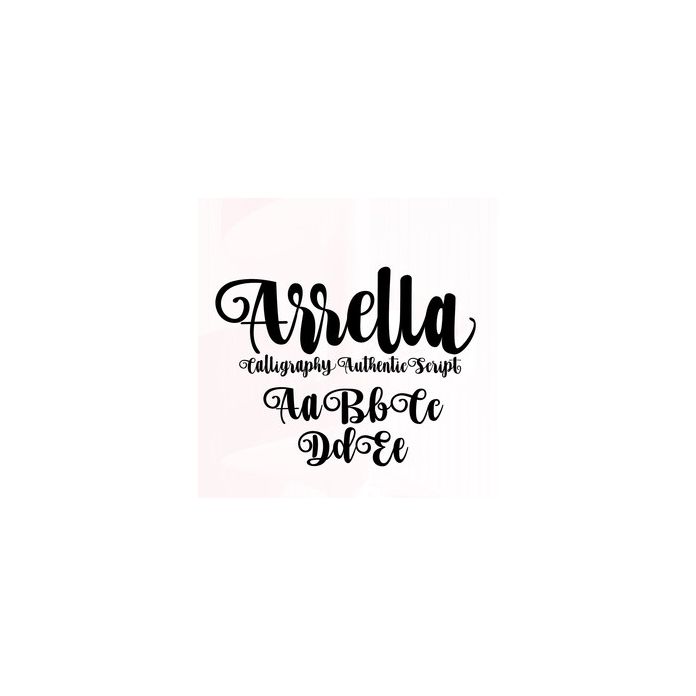
Arrella is a beautiful original calligraphy font that is now available for anyone who wants to use it for a beautiful start to the year. Perfect for projects, products, crafts, invitations and personalization. Includes alphabet, numbers, and punctuation.